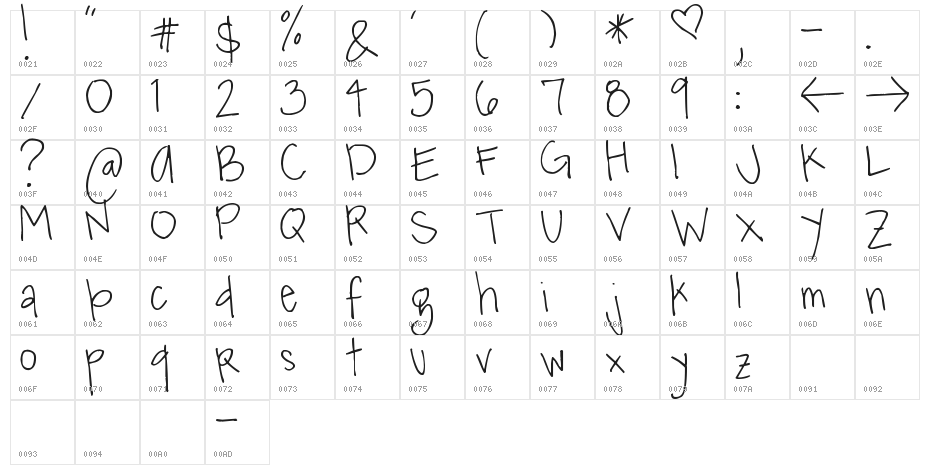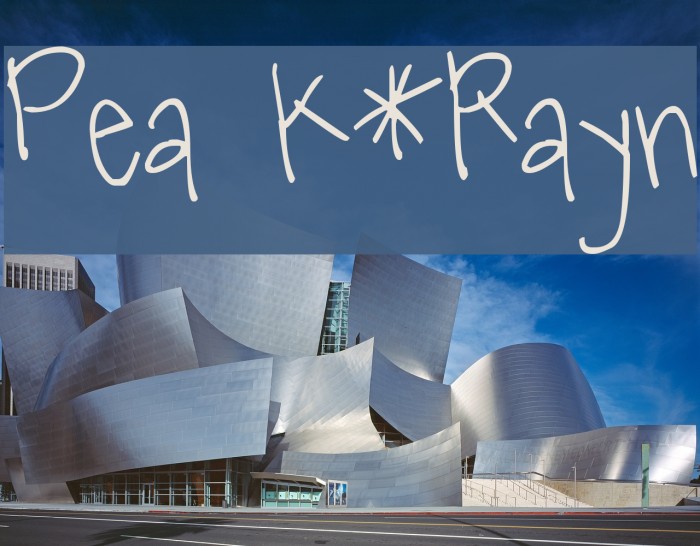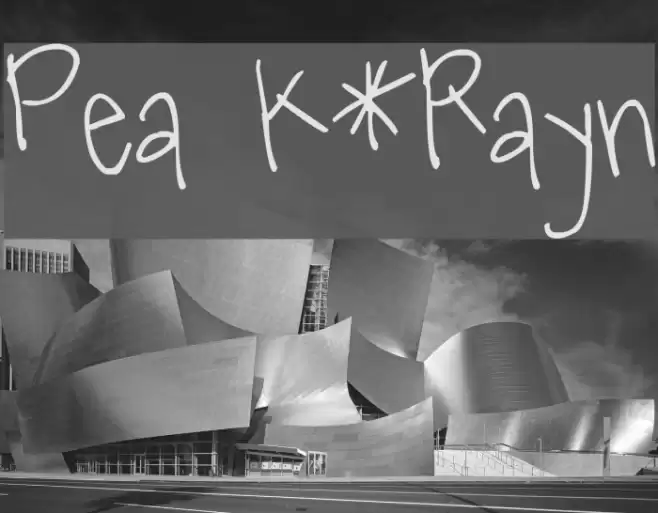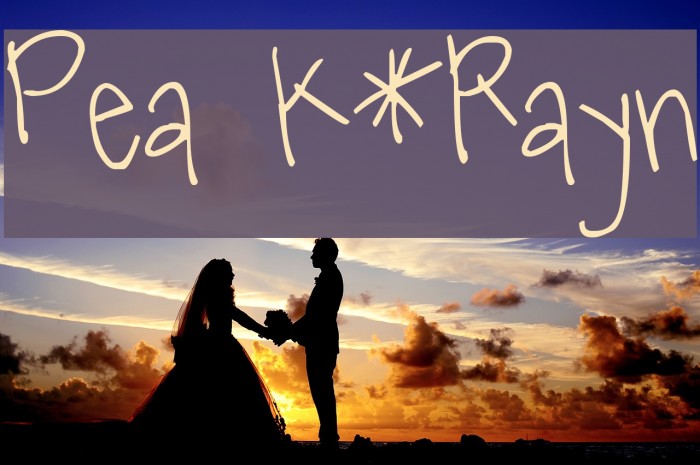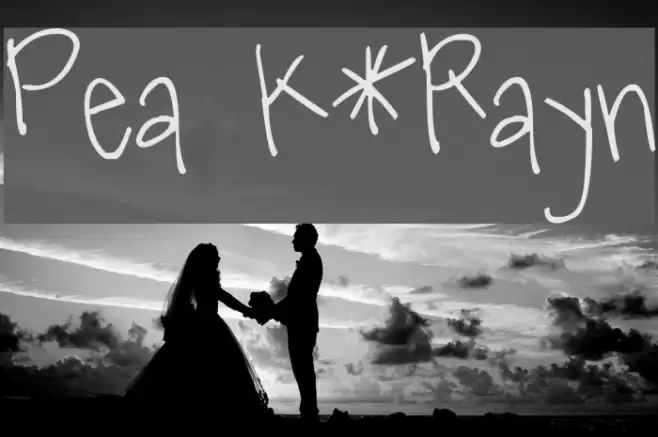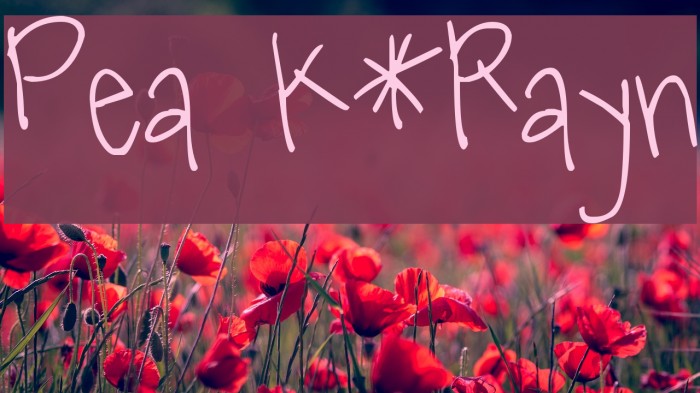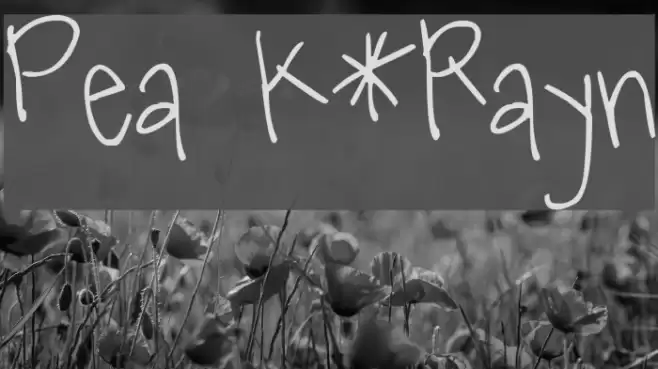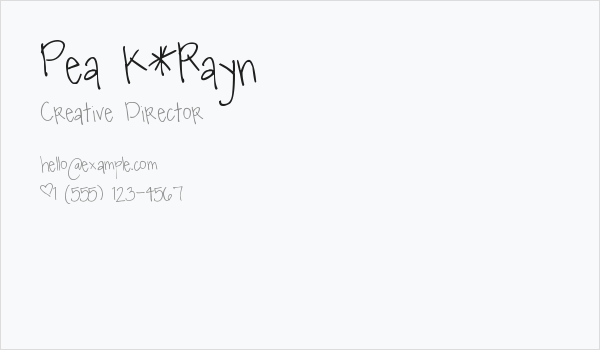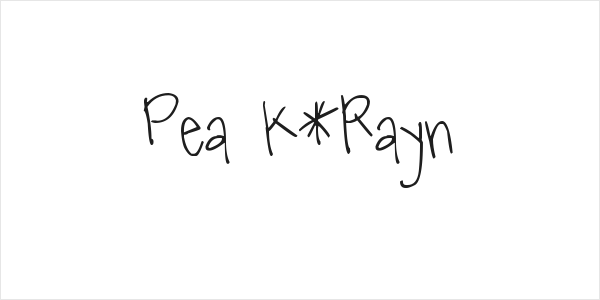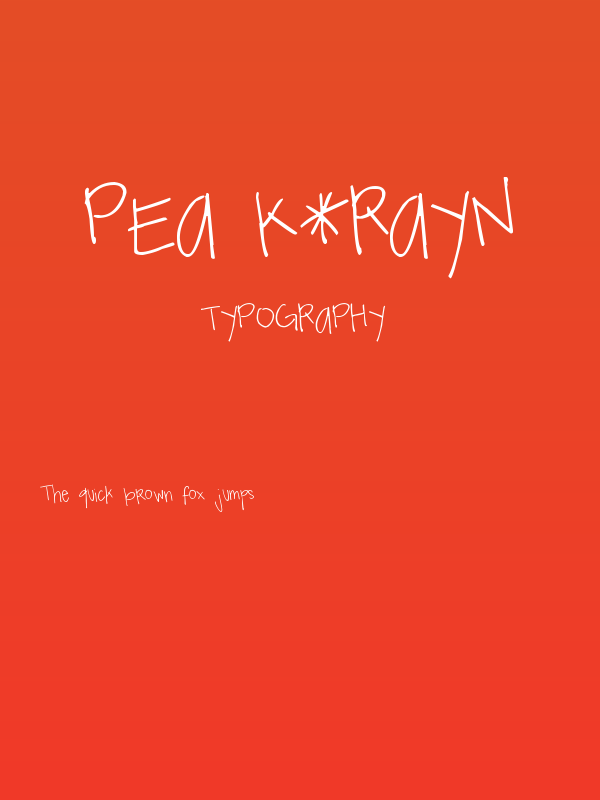
Pea K*Rayn Font
Pea K*Rayn Description
This font exudes a playful and casual handwritten style, characterized by its irregular and free-flowing letterforms. The strokes are uneven, giving it a personal and informal touch, reminiscent of a quick note or a personal diary entry. Each character is unique, with varying heights and angles, adding to its charm and authenticity. The font maintains a consistent line weight throughout, which is relatively thin, enhancing its light and airy feel. The spacing between characters is loose, contributing to its relaxed and approachable appearance. This font is ideal for projects that require a personal touch or a sense of spontaneity.
Overall StyleCasual
Use CaseLogos, Headlines, Informal text
Proposed ProjectsGreat for greeting cards, personal notes, casual invitations, and playful branding.